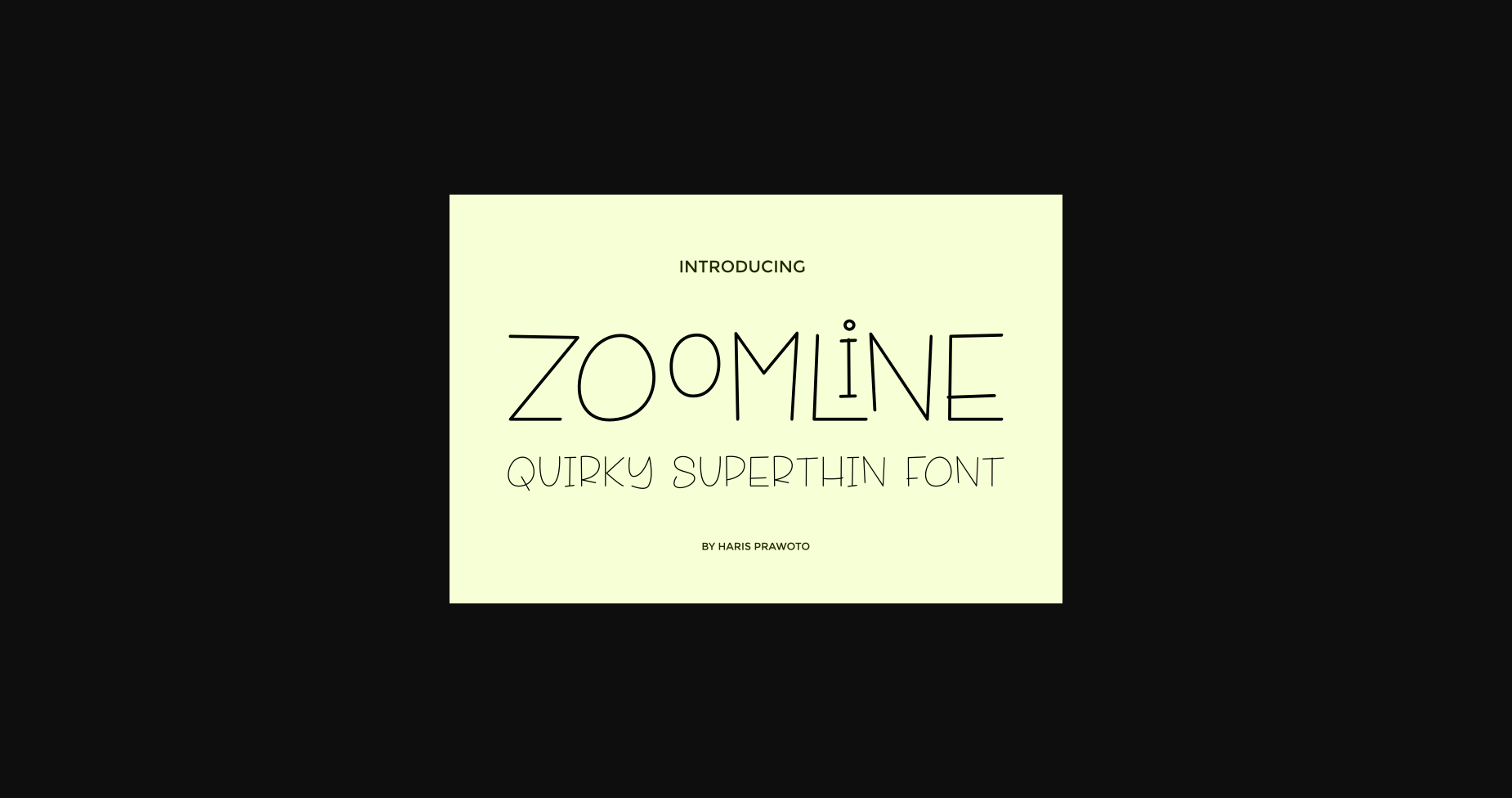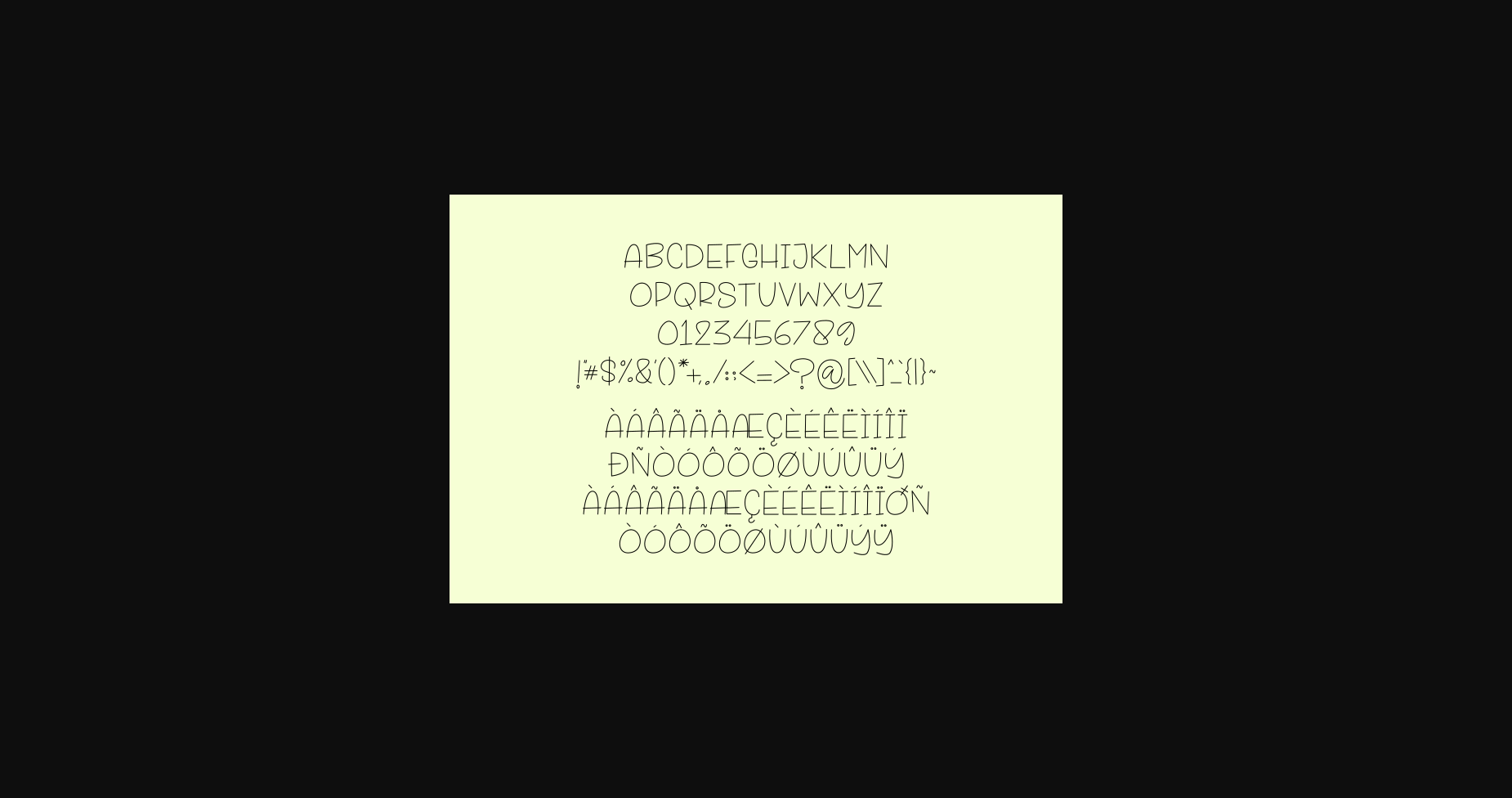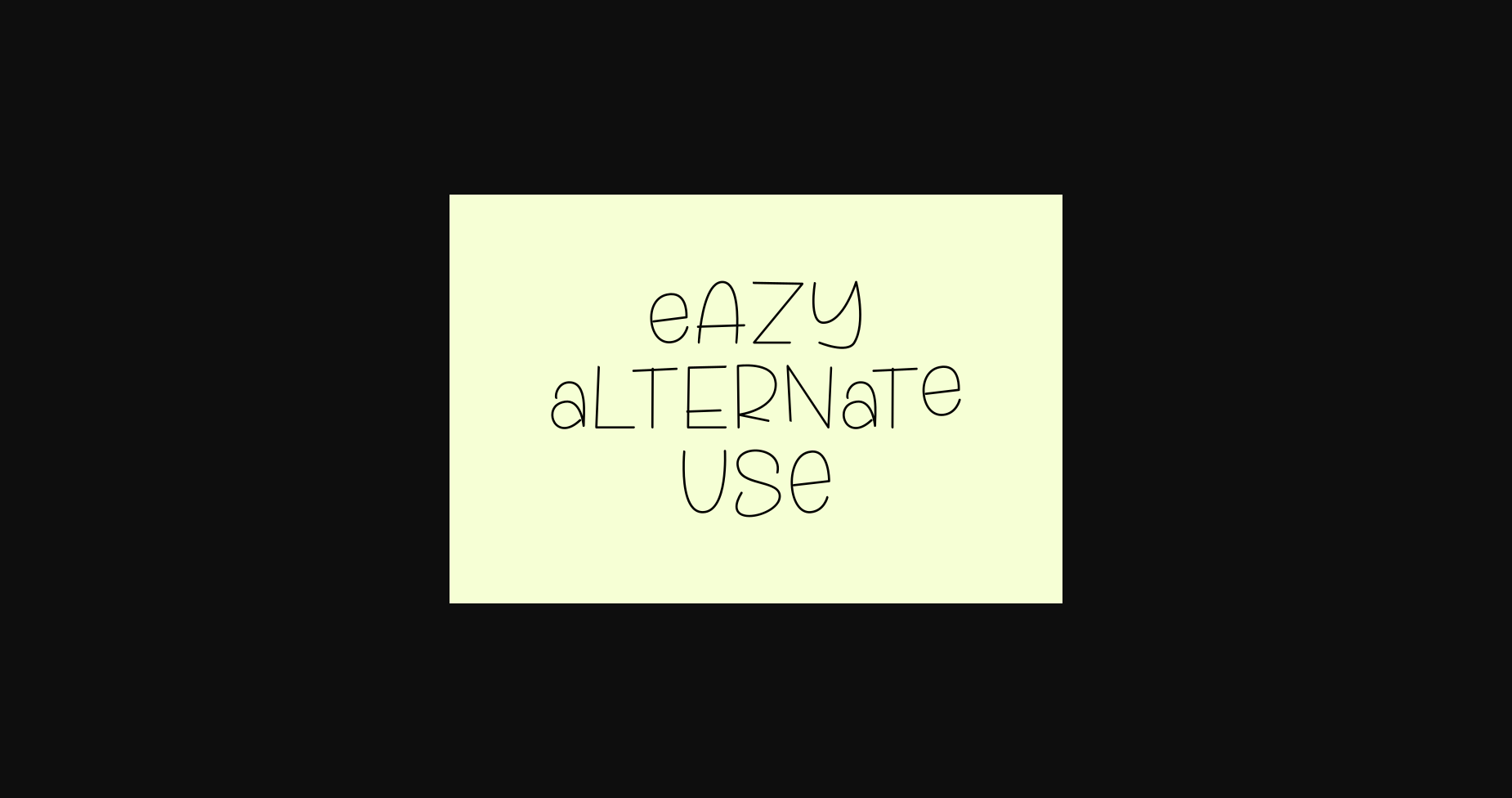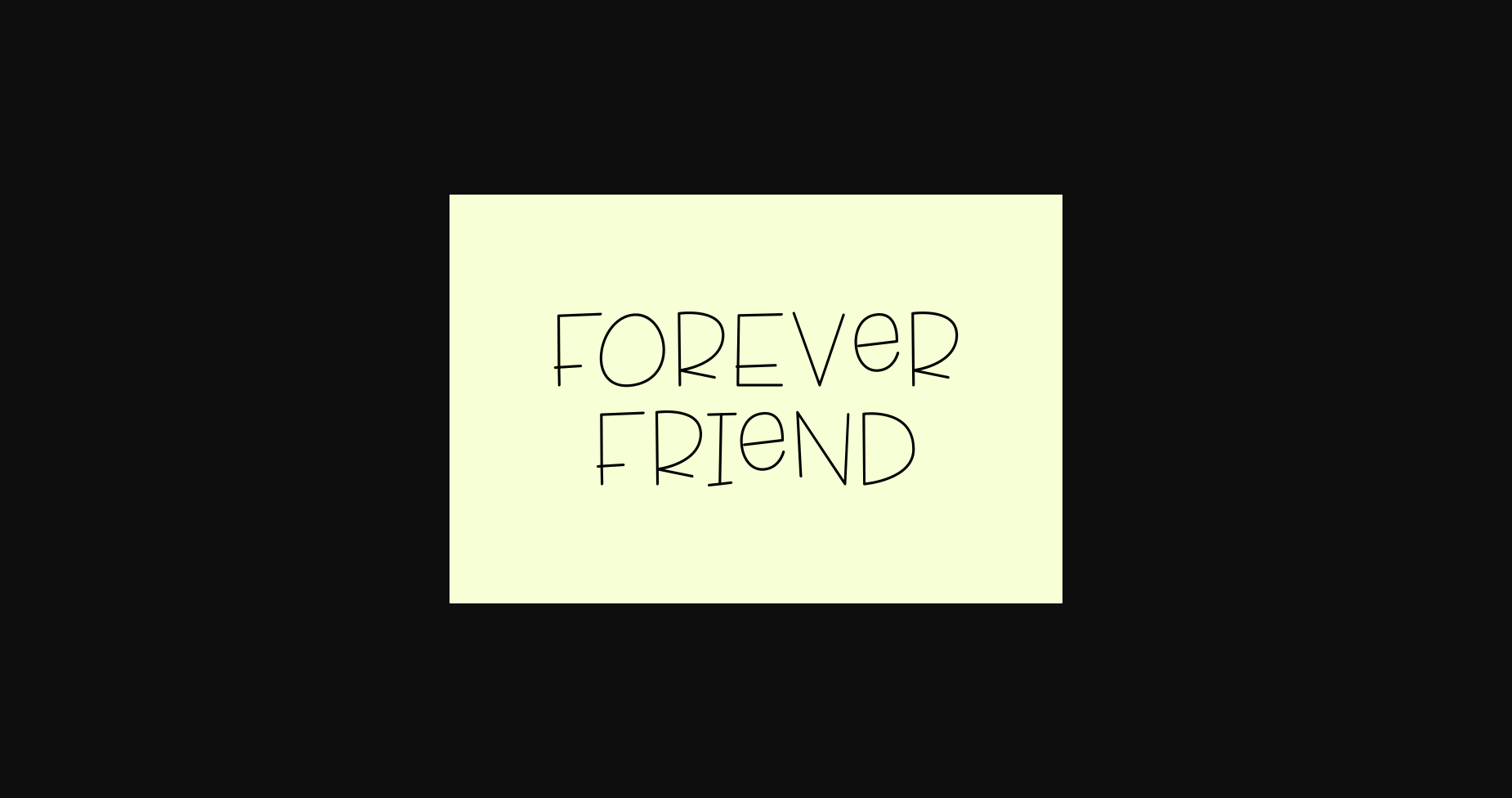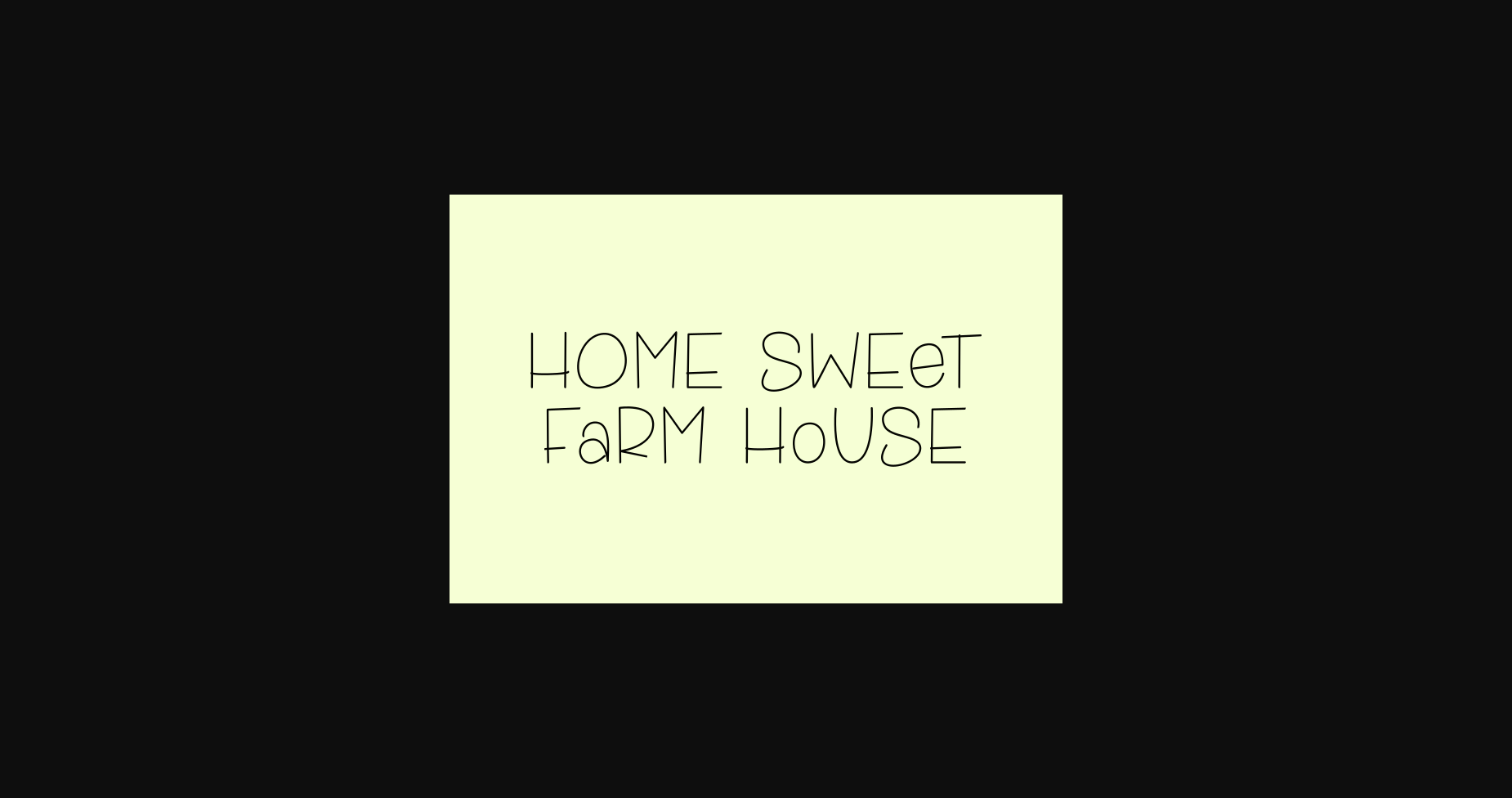
HomeSans Serif FontsZoomline Font Sans Serif Fonts Zoomline Font FacebookXPinterestWhatsApp 1 of 9 ... Zoomline Font Poster 2... Zoomline Font Poster 3... Zoomline Font Poster 4... Zoomline Font Poster 5... Zoomline Font Poster 6... Zoomline Font Poster 7... Zoomline Font Poster 8... Zoomline Font Poster 9... About Zoomline Font Zoomline is a minimal and thin lettered sans serif font. It can easily be matched to an incredibly large set of projects, so add it to your creative ideas and notice how it makes them stand out! DOWNLOAD NOW People also explored The Bridge font Cottonwood Font Fostea Font Monogram Diginet Font Traditional Challenges Font Nathiya Font Orchid Can Cooler Mockup Farmhouse Font Gailenia Font 549 0 TagsZoomline Font Previous articleNorway FontNext articleCalderock Font LEAVE A REPLY Cancel reply Comment: Please enter your comment! Name:* Please enter your name here Email:* You have entered an incorrect email address! Please enter your email address here Website: Save my name, email, and website in this browser for the next time I comment. Personal Use Free Euphorigenic Personal Use Free Read more about this font Boronic Personal Use Free Read more about this font Shelly Personal Use Free Read more about this font Quentin Personal Use Free Read more about this font BLOG Fonts That Capture the Spirit of New York City New York City is more than just a place—it’s an experience, a rhythm, a visual language... Using Fonts in Digital Marketing: Tips to Strengthen Your Brand Identity How to Install and Use Fonts on Windows, macOS, and Web Projects 5 Fonts That Will Dominate Design Trends in 2026